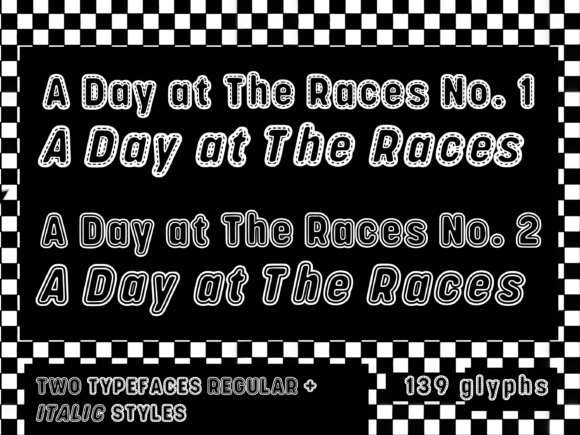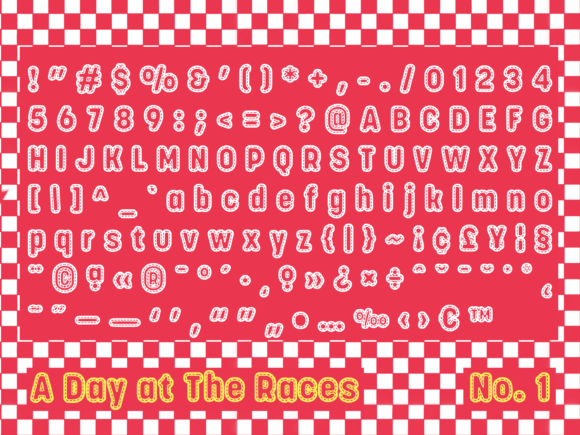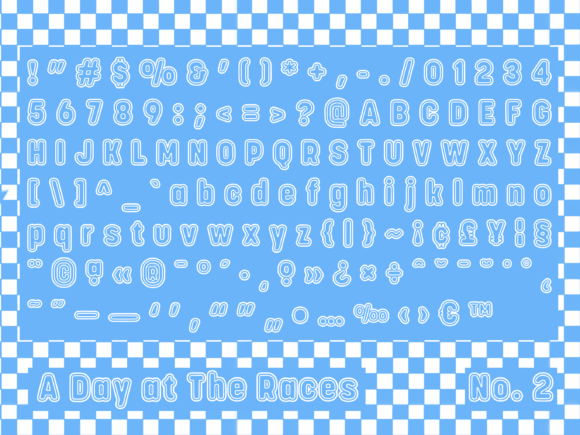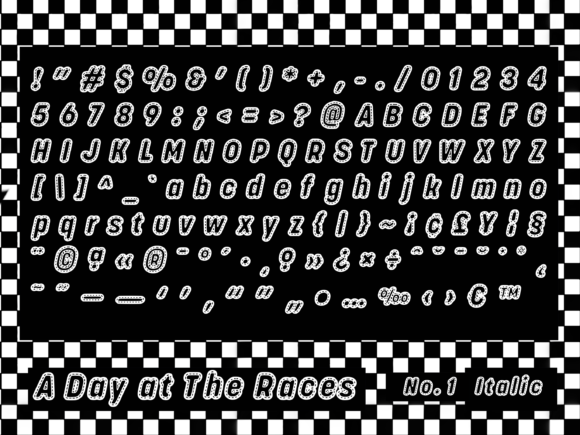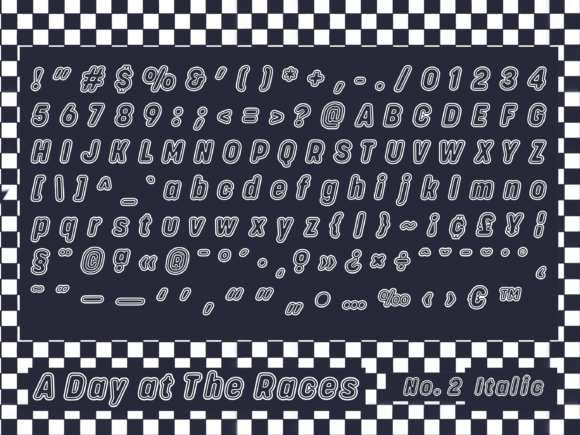
Get Ready to Place Your Bet on a Winning Design
It’s the moment every designer dreads: staring at a blank canvas, unsure of where to start. But what if you could tap into a timeless aesthetic that’s guaranteed to bring the house down? For creatives looking to add a touch of vintage glamour to their next project, the answer lies in a font that’s sure to be a champion: A Day at the Races Font.
This stylish display font is perfect for designers seeking to inject a sense of nostalgia and sophistication into their branding projects. From logos and t-shirt printing to sport designs and beyond, A Day at the Races Font is the ultimate wild card – and it’s sure to pay off in a big way. Whether you’re a seasoned pro or just starting out, this versatile font is a valuable addition to any designer’s toolkit.
A Day at the Races Font Key Features
- Size and Resolution: The font is designed to be used at various sizes and resolutions, including small text sizes and high-resolution displays.
- Unique Characteristics: A Day at the Races Font features a unique, hand-drawn style with bold lines and intricate details, making it ideal for use in posters, advertisements, and other promotional materials.
- Font Family: The font family includes multiple weights, including light, regular, bold, and black, allowing for a range of design options.
A Day at the Races Font Review
Overall, I have mixed feelings about the A Day at the Races Font. On one hand, it’s a unique and quirky font that’s sure to grab attention. ✨ I love the vintage feel it brings to any design project. The bold lines and playful characters make it perfect for adding a touch of whimsy to headlines and titles.
However, there are some limitations to consider. ⚠️ The font can be difficult to read in smaller sizes, which may limit its use in body text. Additionally, the irregular shapes of the letters can make it challenging to pair with other fonts, which may limit its versatility.
- Unique and attention-grabbing design
- Perfect for adding a touch of whimsy to headlines and titles
- Vintage feel that’s perfect for retro-themed designs
Limits and Drawbacks
- Difficult to read in smaller sizes
- Challenging to pair with other fonts due to irregular letter shapes
- Limited versatility in body text
Overall, I would recommend the A Day at the Races Font for designers who want to add a touch of personality to their projects. However, it may not be the best choice for projects that require clear and easy-to-read body text.
A Day at the Races Font Practical Application Guide
For optimal use, pair the A Day at the Races font with bold and sans-serif fonts to create a visually appealing contrast. Experiment with different font sizes and styles to create a dynamic design.
The A Day at the Races font is ideal for creating a nostalgic and vintage feel in your designs. Use it for posters, flyers, and social media graphics to add a touch of classic elegance.